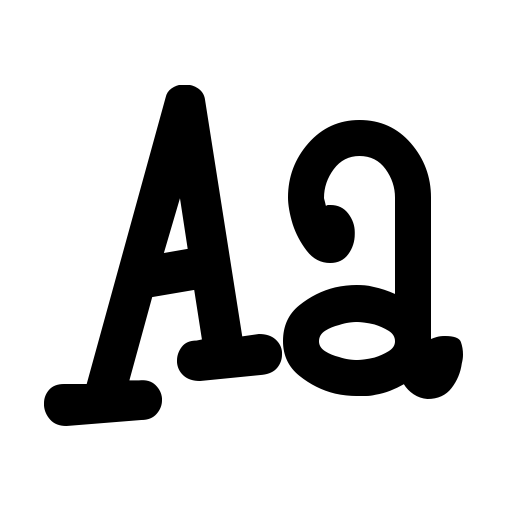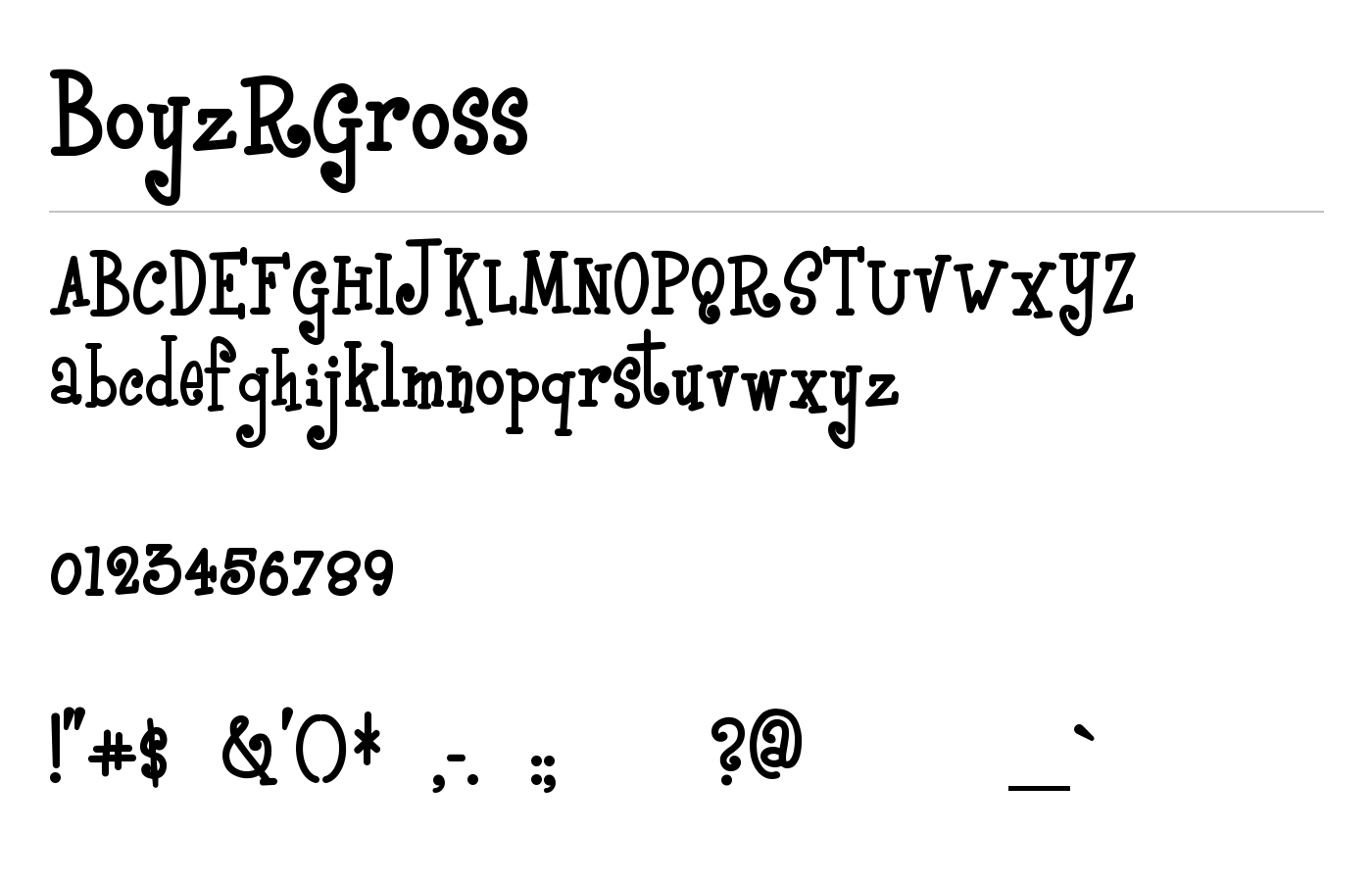
BoyzRGross is a quirky, playful serif font with a hand-crafted feel, featuring whimsical curls and uneven strokes that add character and charm. Its irregular letterforms and moderate contrast give it a fun, casual vibe, making it ideal for creative projects, children’s books, and informal branding that seeks a lighthearted and approachable tone. This font shines in headlines and display uses where personality and uniqueness are key.
| Font family | BoyzRGross Font |
| Designer | Nick Curtis |